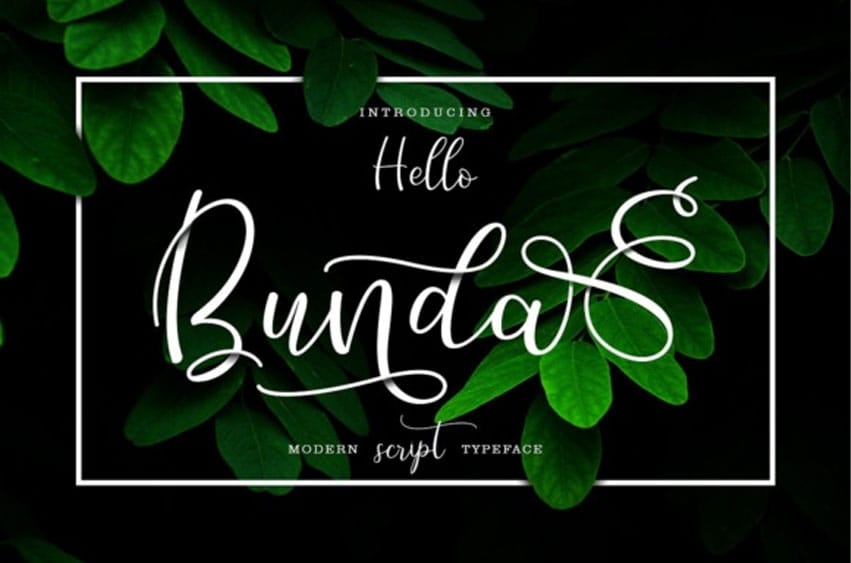
Hello Bunda Font Script is a simple, clean handwritten font featuring stunning swashes.
It fits in headlines, logos, posters, flyers, invitations, name cards, branding materials, print media, editorial layouts, and many more.